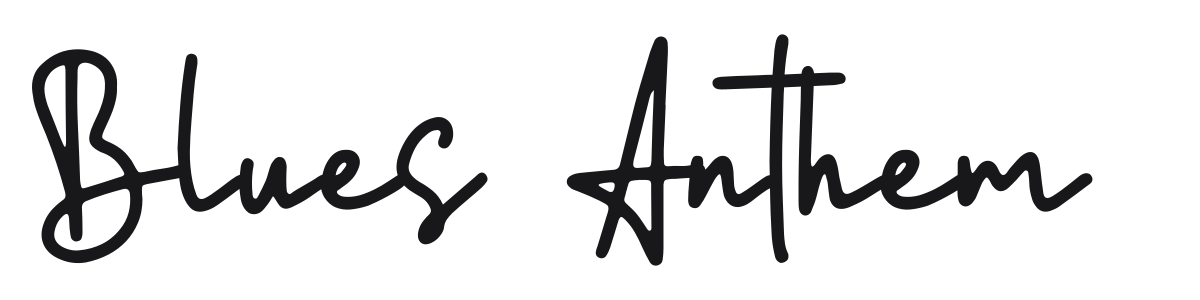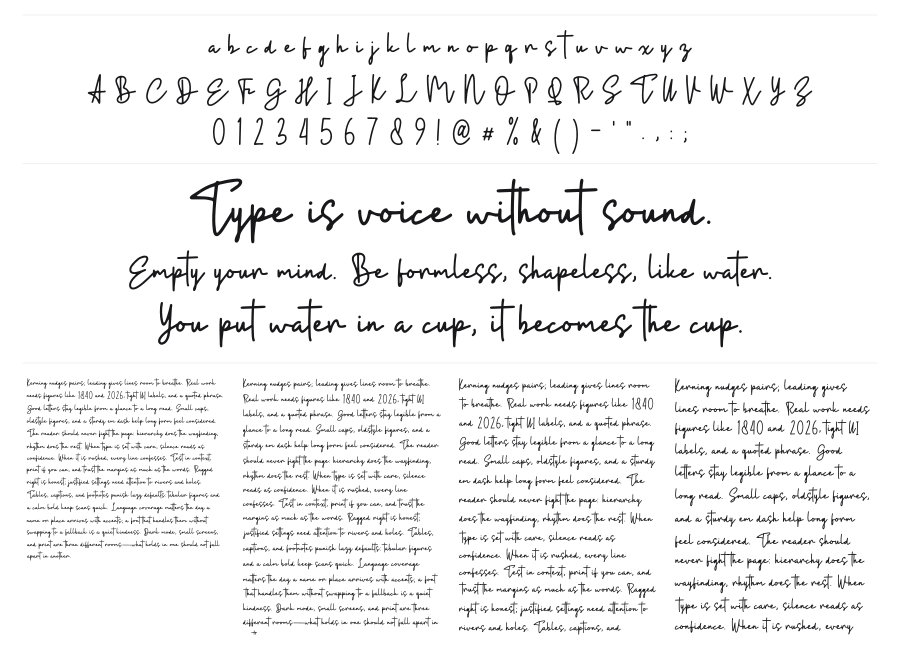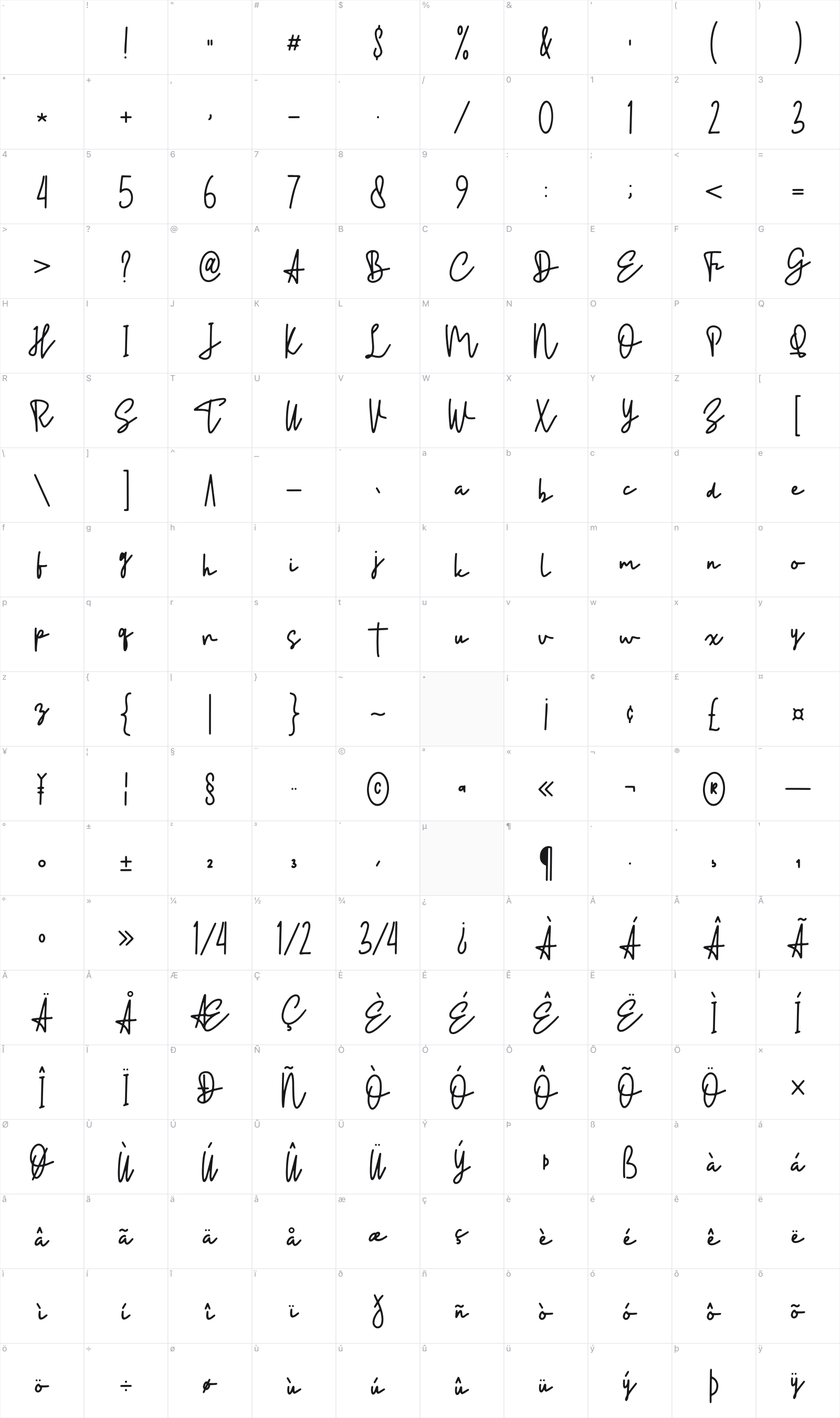
Blues Anthem
Blues Anthem is a casual handwritten script with the loose, natural energy of confident ink on paper. Letters connect in an unhurried flow with subtle ink-stroke texture that keeps it feeling genuinely hand-drawn rather than digitally smooth. It suits branding, packaging, and any headline where warmth and informality matter.